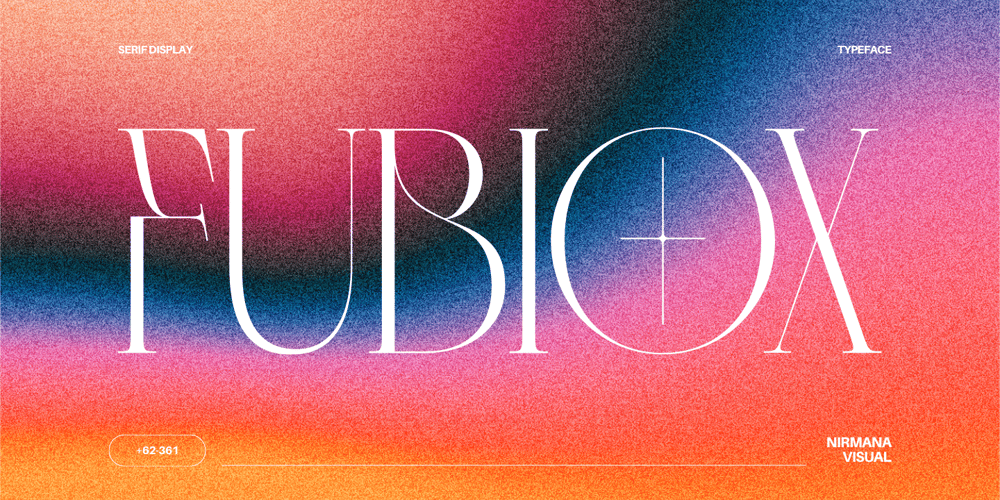
Fubiox Font Family was designed by Sigit Dwipa and published by Nirmana Visual. Fubiox contains 1 styles and family package options. Introducing Fubiox our exquisite elegant style font, designed to bring sophistication and grace to your designs. With its refined letterforms, delicate curves, and timeless beauty, this font is perfect for projects that require a touch of elegance and class.Inspired by the elegance of classic typography. This font exudes a sense of refined aesthetics. Its graceful strokes and balanced proportions make it an excellent choice for luxury branding, high-end invitations, editorial design, and formal occasions.